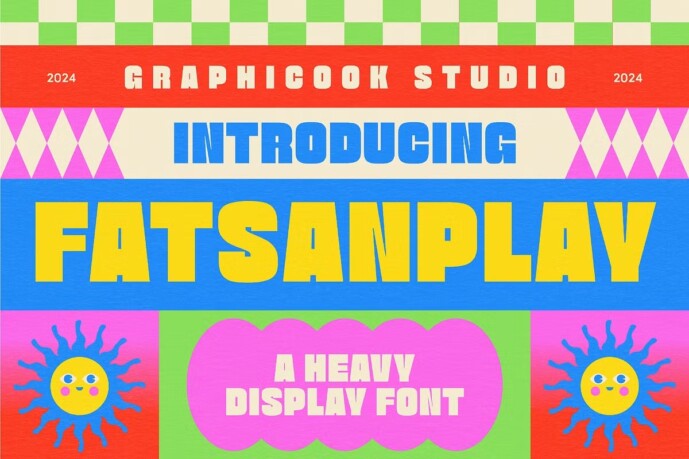
Fatsansplay Font
Fatsansplay Font is a heavy sans font with a modern retro vibe. Perfect for packaging, coffee shop branding, and creating eye-catching social media content
Fatsansplay is perfect for headlines, logotypes, magazines, packaging, quotes, movies, games, cover albums, book covers, and flyers, it’s a perfect solution for creating eye-catching designs that stand out in any context.